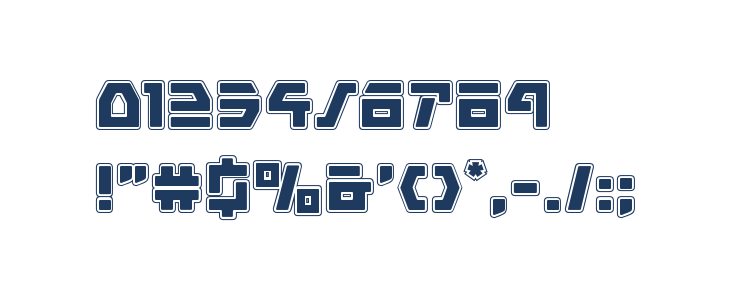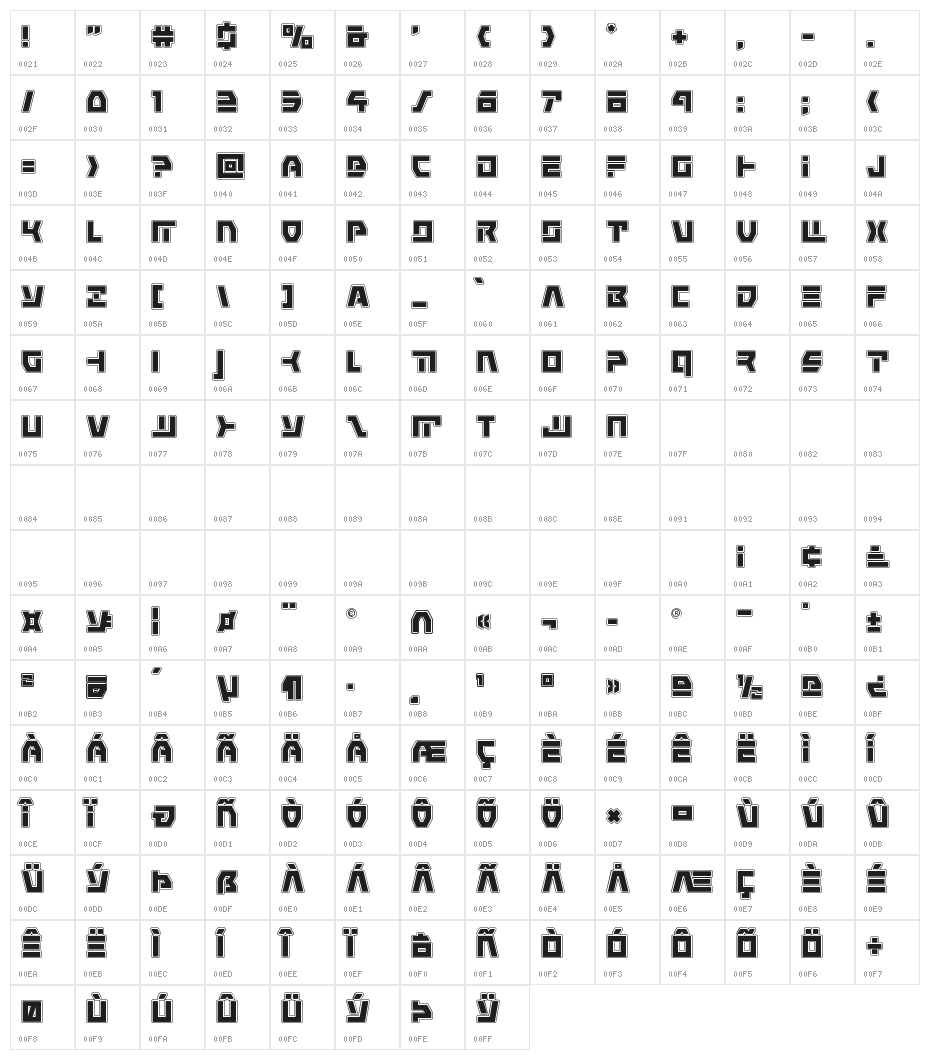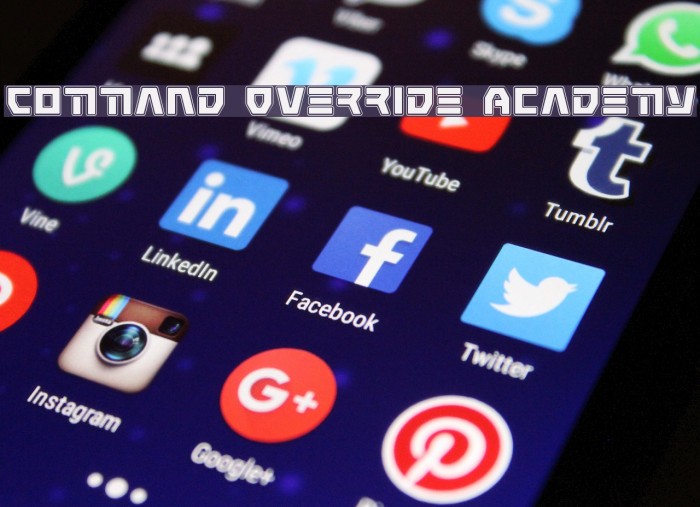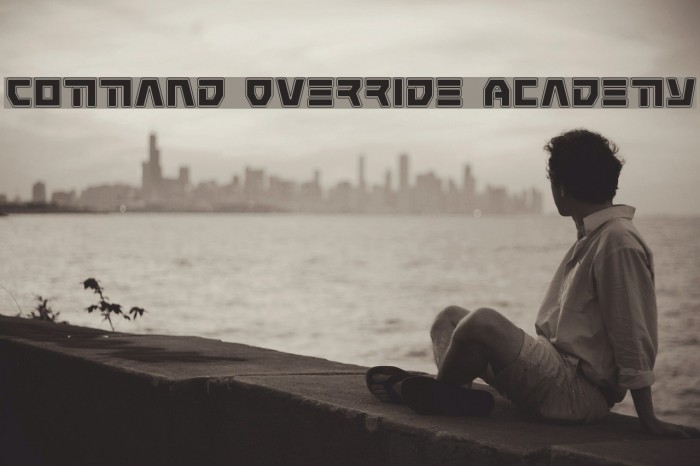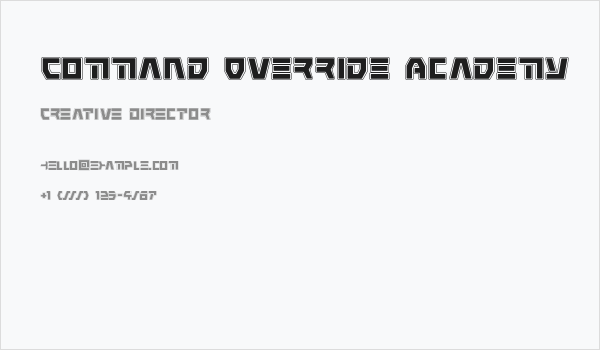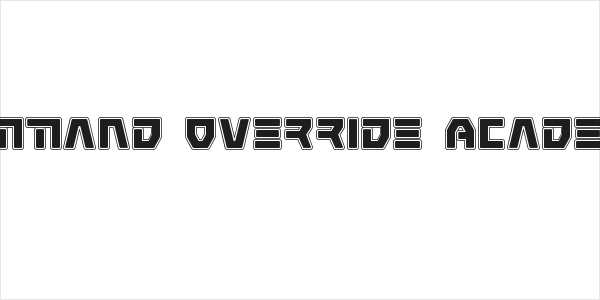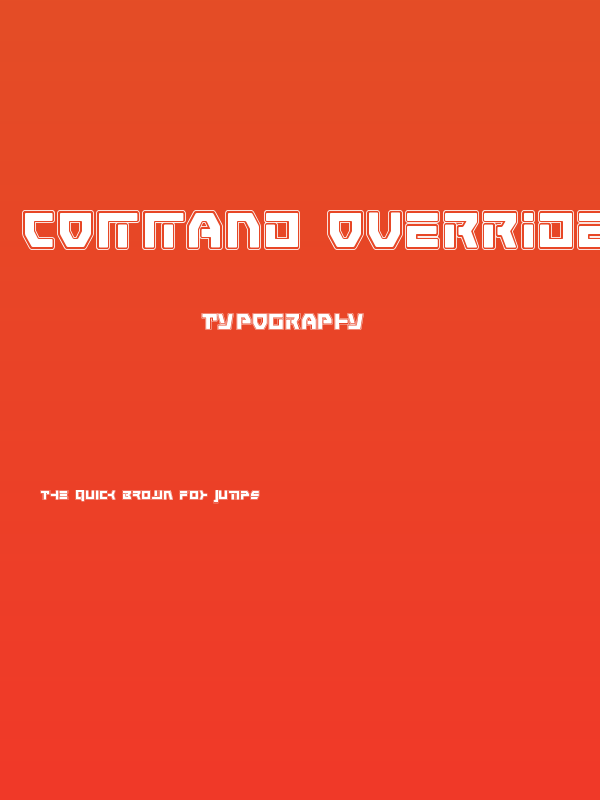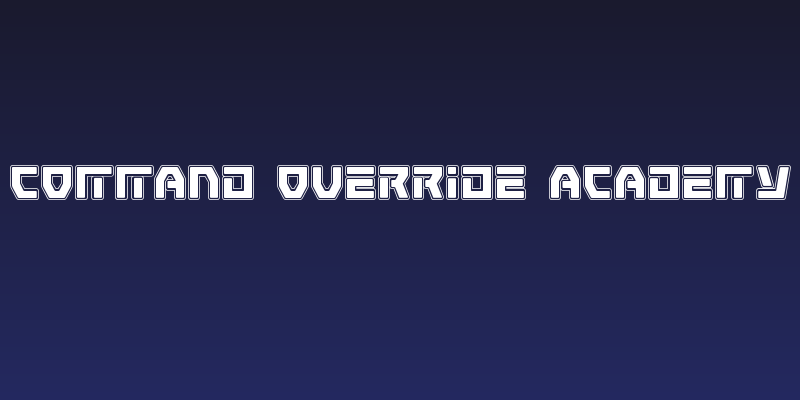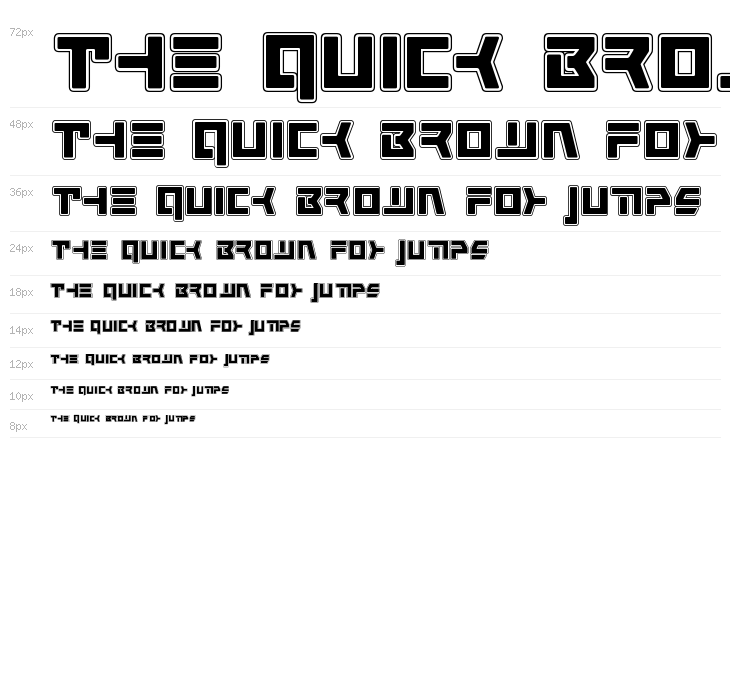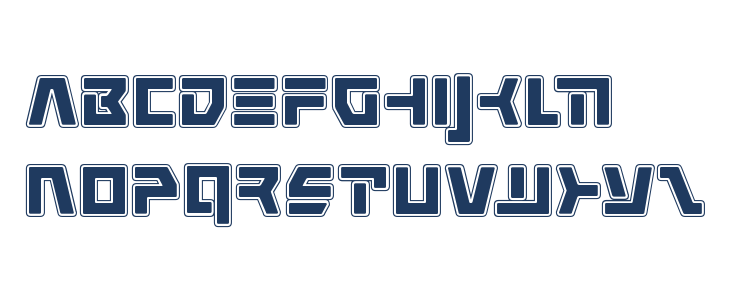
Command Override Academy Font
Command Override Academy Description
This font features a bold, futuristic design with a strong geometric influence. Each character is outlined with a thick border, creating a striking visual impact. The letters are angular and structured, with a consistent width throughout. The uppercase and lowercase letters maintain a uniform style, enhancing the font's cohesive appearance. Numbers and special characters are designed to match the bold aesthetic, making them stand out prominently. The overall look is modern and dynamic, suitable for projects that require a strong, attention-grabbing typeface.